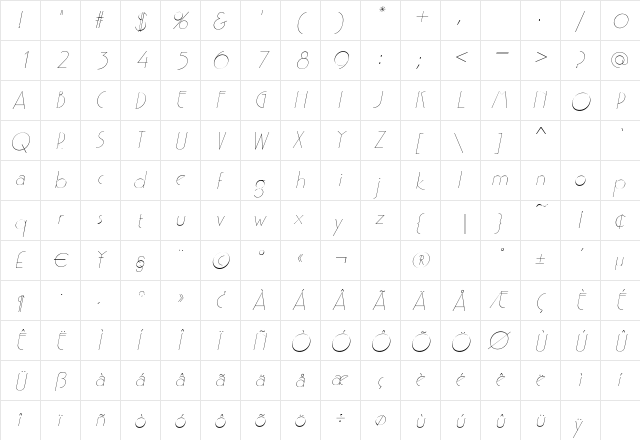
LydiaBecker Italic
Design Context for LydiaBecker Typeface
LydiaBecker takes a measured approach to typography — its balanced proportions and neutral character make it a reliable workhorse for both digital and print work. The slanted form adds forward momentum and visual energy.
Pro Tip: Use LydiaBecker for emphasis, pull quotes, and subheadings where its slanted energy can add rhythm to the layout.